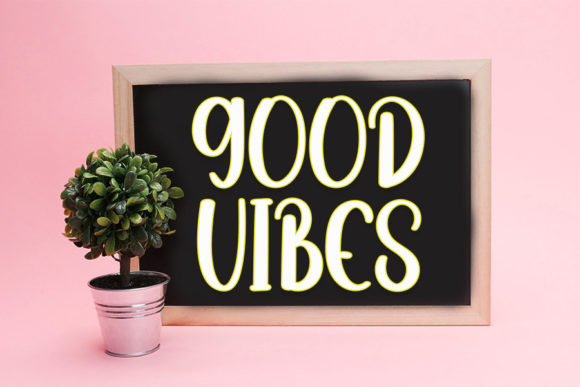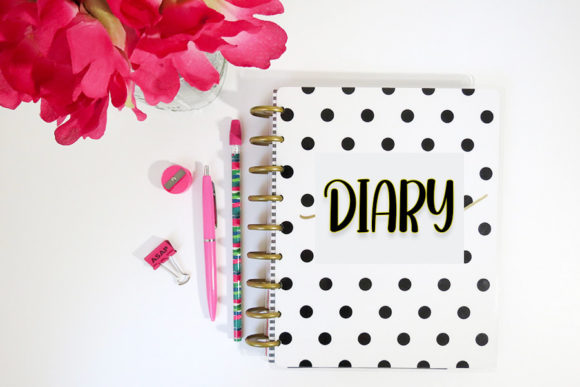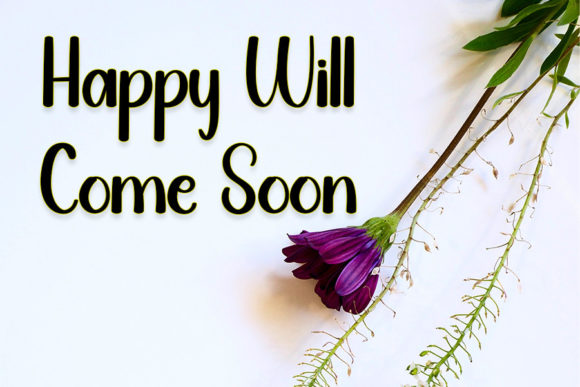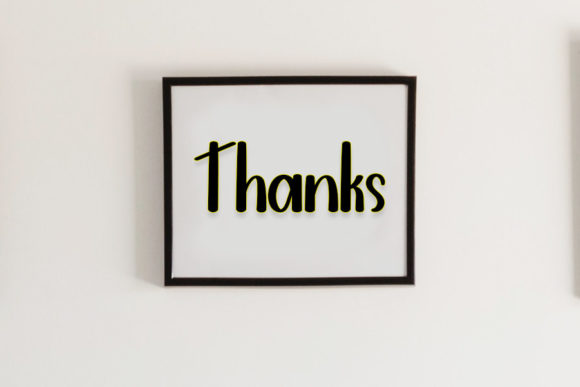
Sunshine Font
About Sunshine Font
Sunshine is a captivating and versatile handwritten font that brings a distinctive and impactful touch to your designs. With its unique and charming style, this font has the ability to infuse a delightful spark into any creative project you undertake.
The font’s beauty lies in its ability to adapt to a wide range of design applications. Its versatility allows it to shine in various contexts, from branding and logos to invitations, social media graphics, posters, and more. Whether your project calls for a touch of elegance, playfulness, or authenticity, Sunshine can seamlessly accommodate your design needs.
Sunshine’s handcrafted quality adds a genuine and personal feel to your work. Its strokes capture the essence of human touch, giving your designs a warm and inviting character. This font’s versatility makes it suitable for both formal and informal projects, allowing you to convey the desired mood and message effectively.
When used in branding, Sunshine can inject a fresh and vibrant energy into your logo, making your brand identity stand out. For invitations and greeting cards, its unique flair adds a touch of excitement and anticipation. In social media graphics, it grabs attention and engages viewers with its stunning impact.
The font’s readability is a key asset, ensuring that your message is communicated clearly to your audience. Whether in larger headlines or smaller body text, Sunshine maintains its legibility without compromising on its visual appeal.
By choosing Sunshine, you’re opting for a font that has the potential to breathe life into your creative endeavors. Its beauty and versatility make it an excellent tool for designers, artists, and creators seeking to elevate their projects with a touch of elegance and charm.